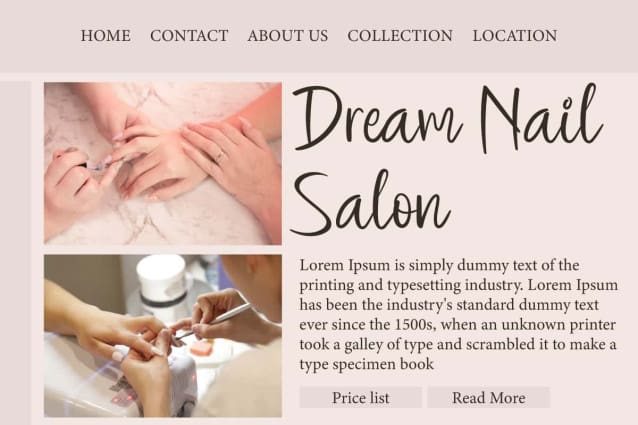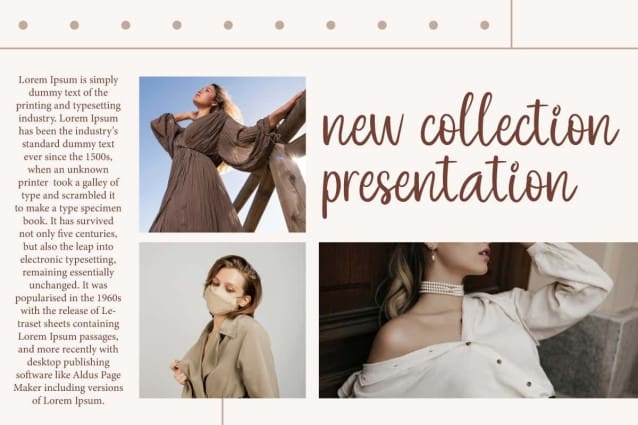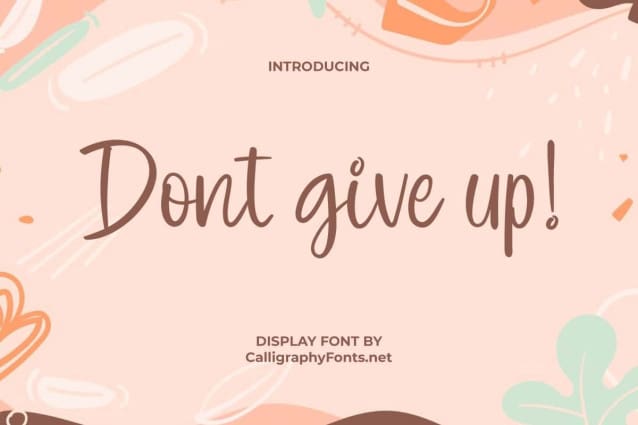
Dont Give Up Font
Dont Give Up Font is a trendy handwritten display font with a fun feel. This font will help you create original and personal designs. This type of font is very suitable for apps, blogs, cover, custom mug, headers, heading, headline, label, logos, magazine catalog, mockup, packaging, publishing, printing, quotes, social media feed, template, titles, watermarks, websites, and much more.
Dont Give Up Font is a charming display font that has a unique and adorable style. Perfectly crafted with a modern touch, resulting in a typography that will never get boring! This would be perfect for accessories and gifts or merchandise, advertising, boutique, cosmetic, craft, fashion, graphic designs, makeup artist, nail art, photography, printing, publishing, salon, skincare, spa, writers, and more.